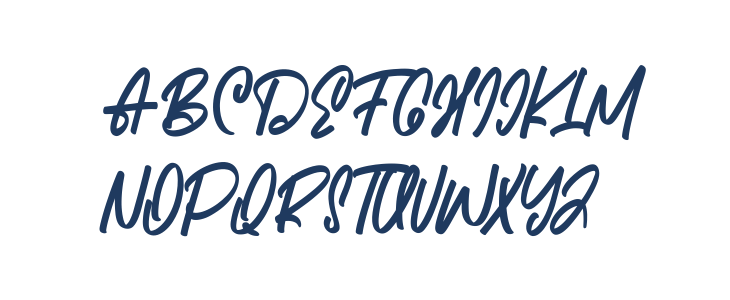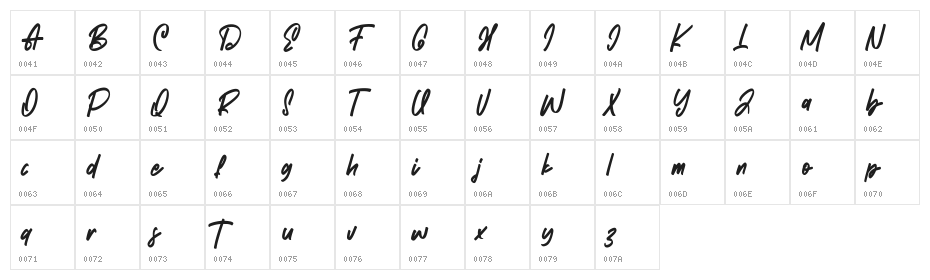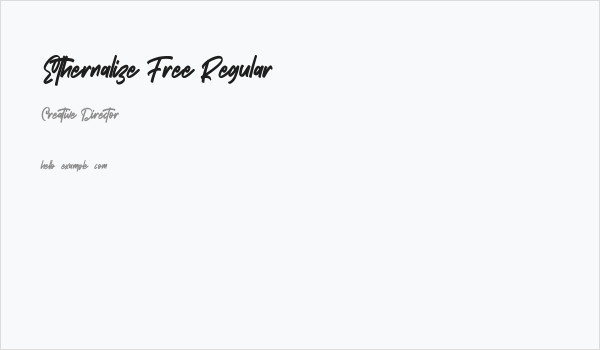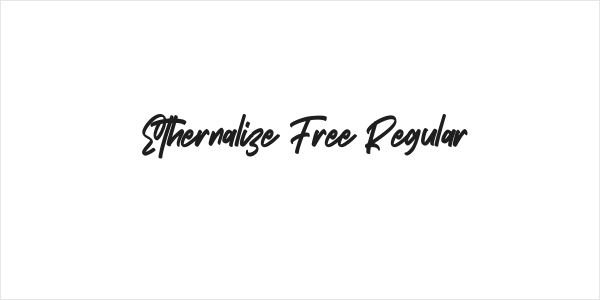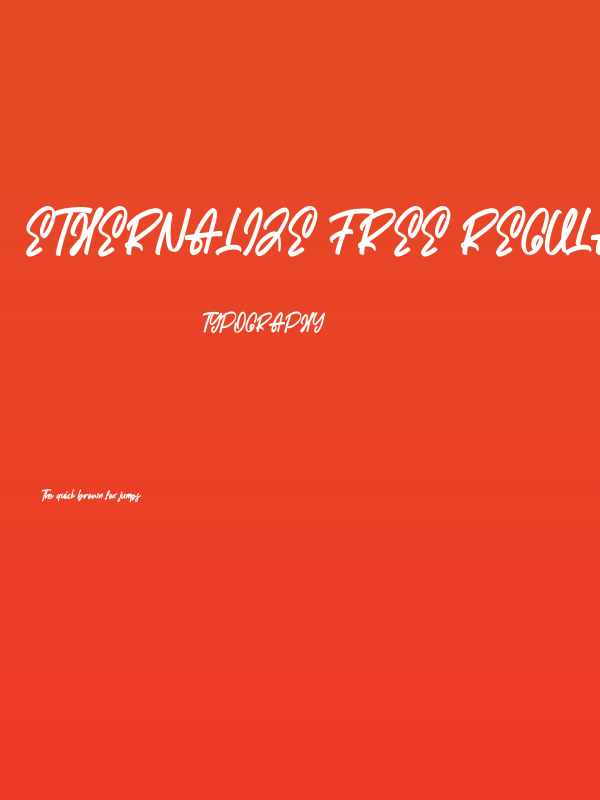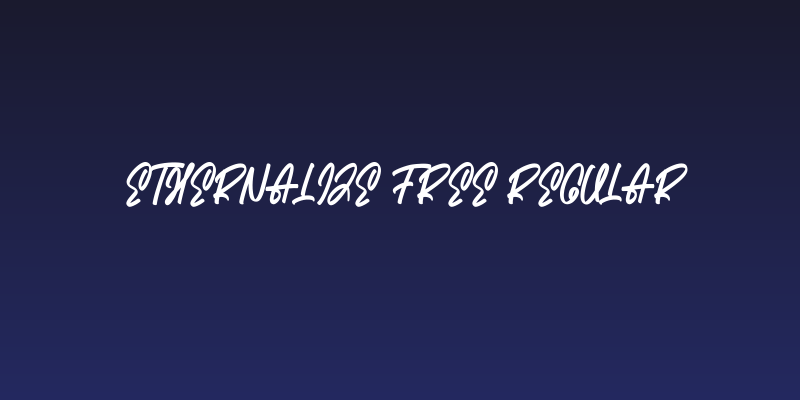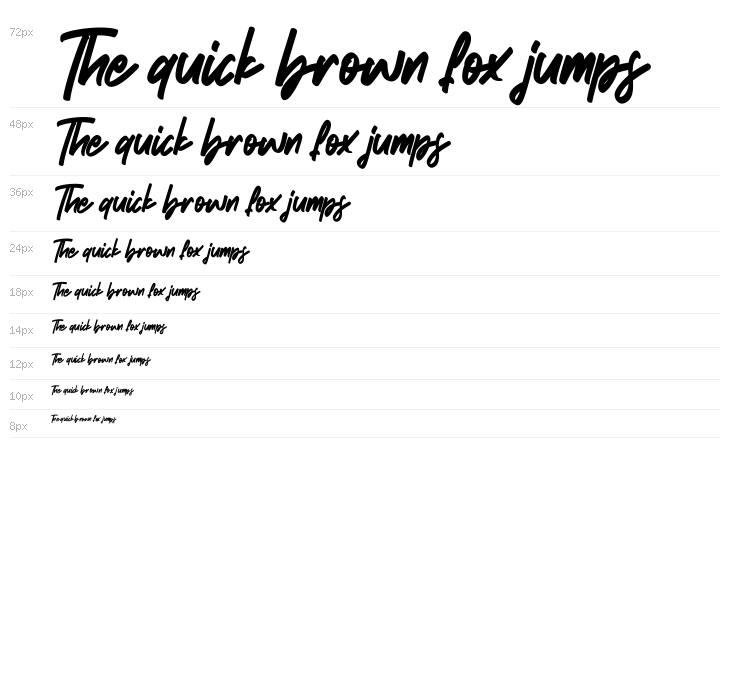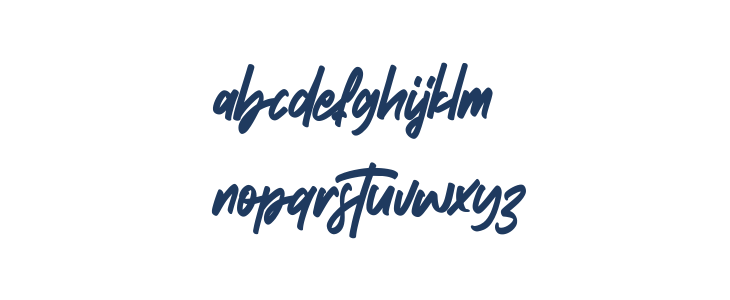
Ethernalize Free Regular Font
Ethernalize Free Regular Description
A bold, handwritten script font with fluid, connected strokes and a casual, energetic appearance. The characters have a consistent slant and rounded terminals, giving the typeface a dynamic and expressive feel.
| Overall Style | Decorative, Modern, Expressive |
| Use Case | Logos, Headlines, Posters, Invitations |
| Proposed Projects | Branding, social media graphics, posters, invitations, merchandise, expressive headlines. |